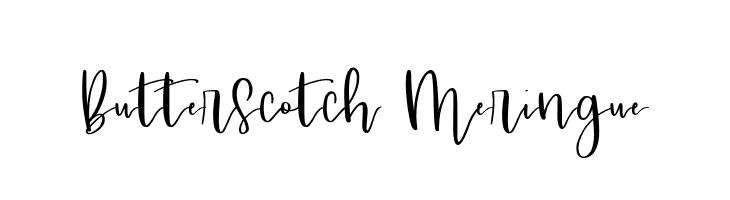
A playful, cursive font with flowing, interconnected strokes and a whimsical charm.
A bold, flowing script font with elegant curves and smooth connections.